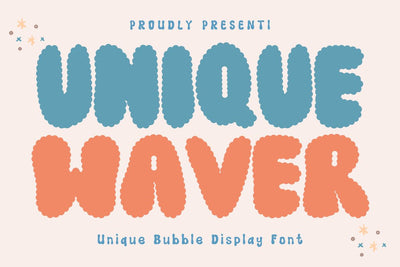
Unique Waver - Unique Bubble Display Font
Hi, Introducing Unique Waver - Unique Bubble Display Font
A Unique Bubble Display Font font with an adorable cloud style. This font is cool for quotes, pillows, t-shirts, mugs, etc